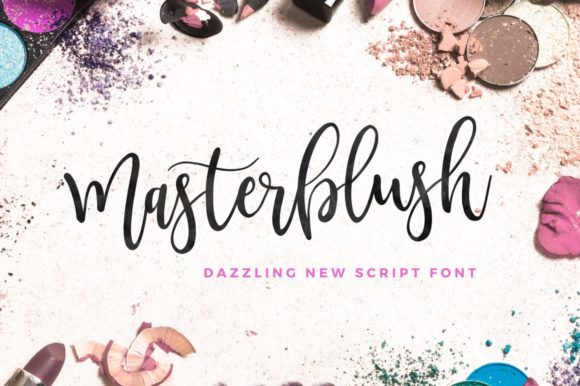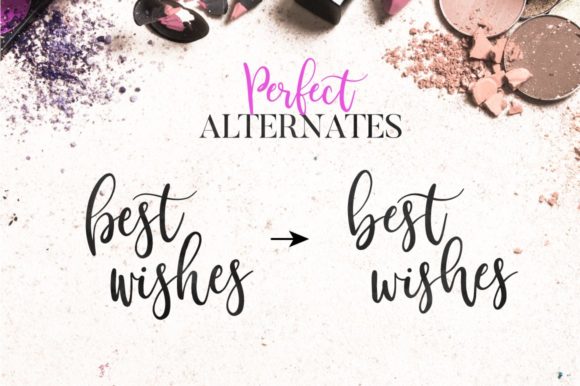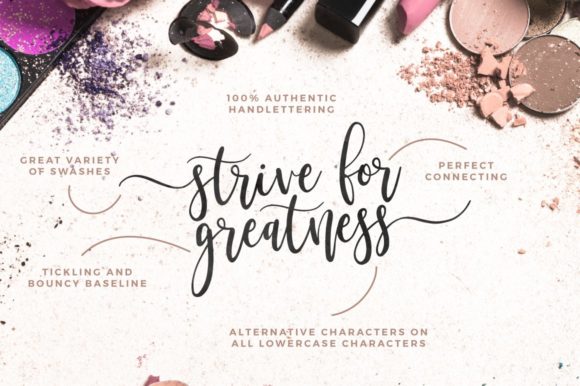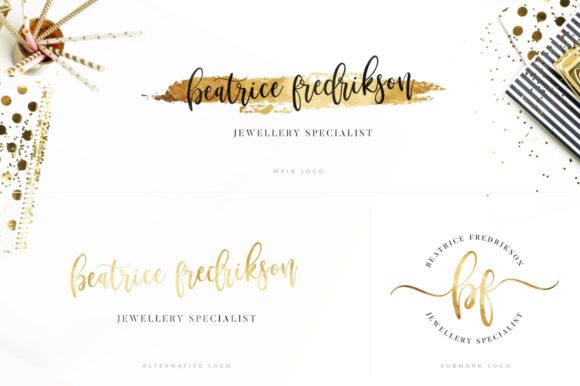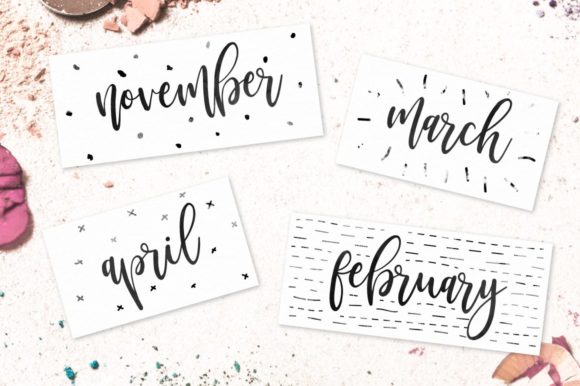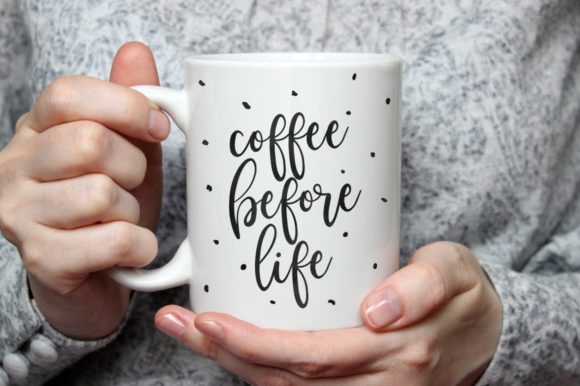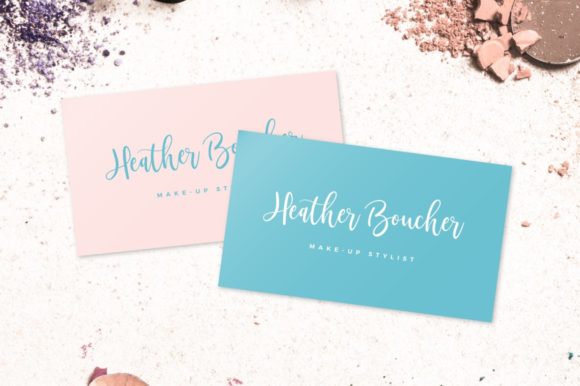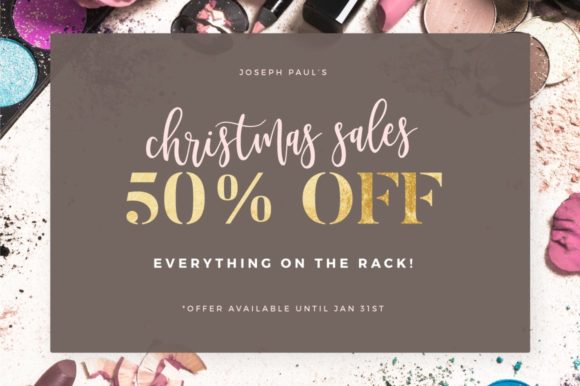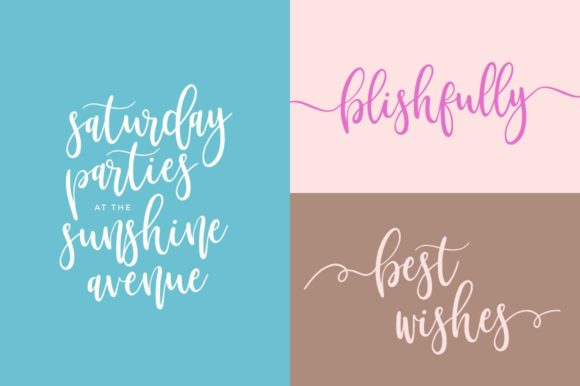
Masterblush Font
About Masterblush Font
Masterblush is a sweet and simple handwritten font with a unique style. It will add a bold flavor to any design concept!